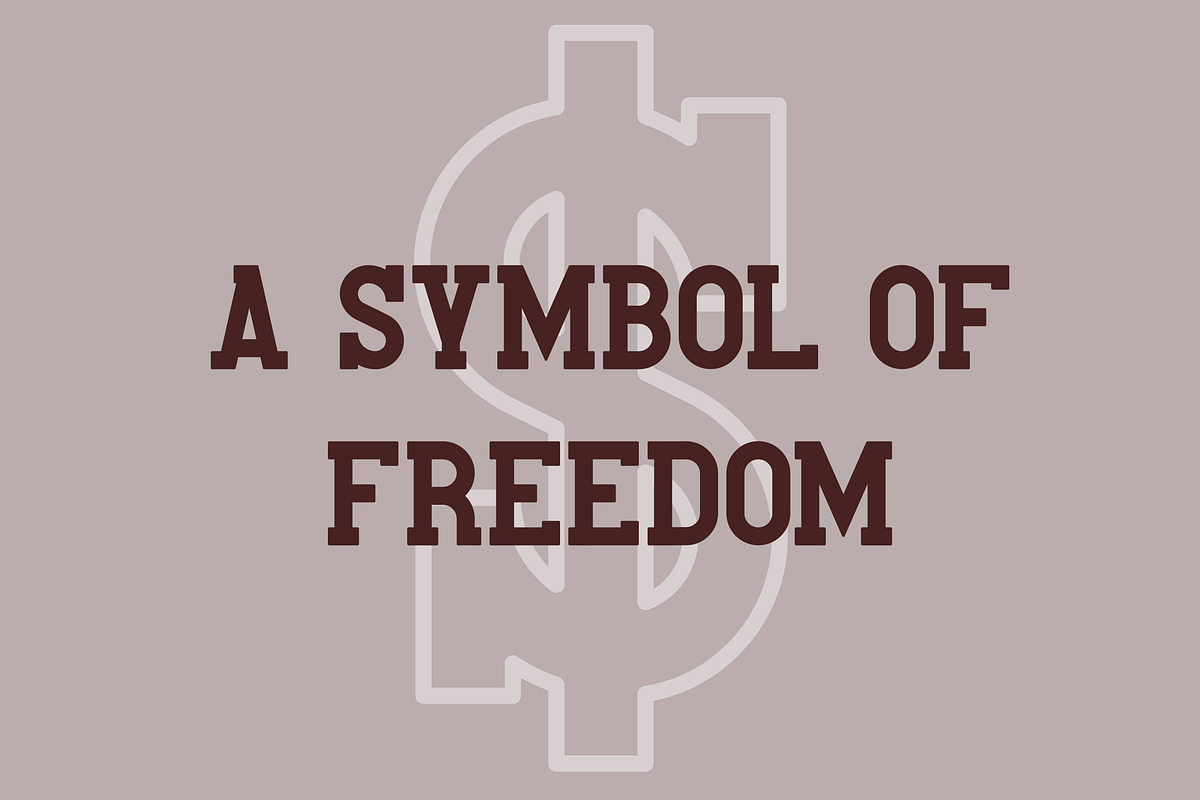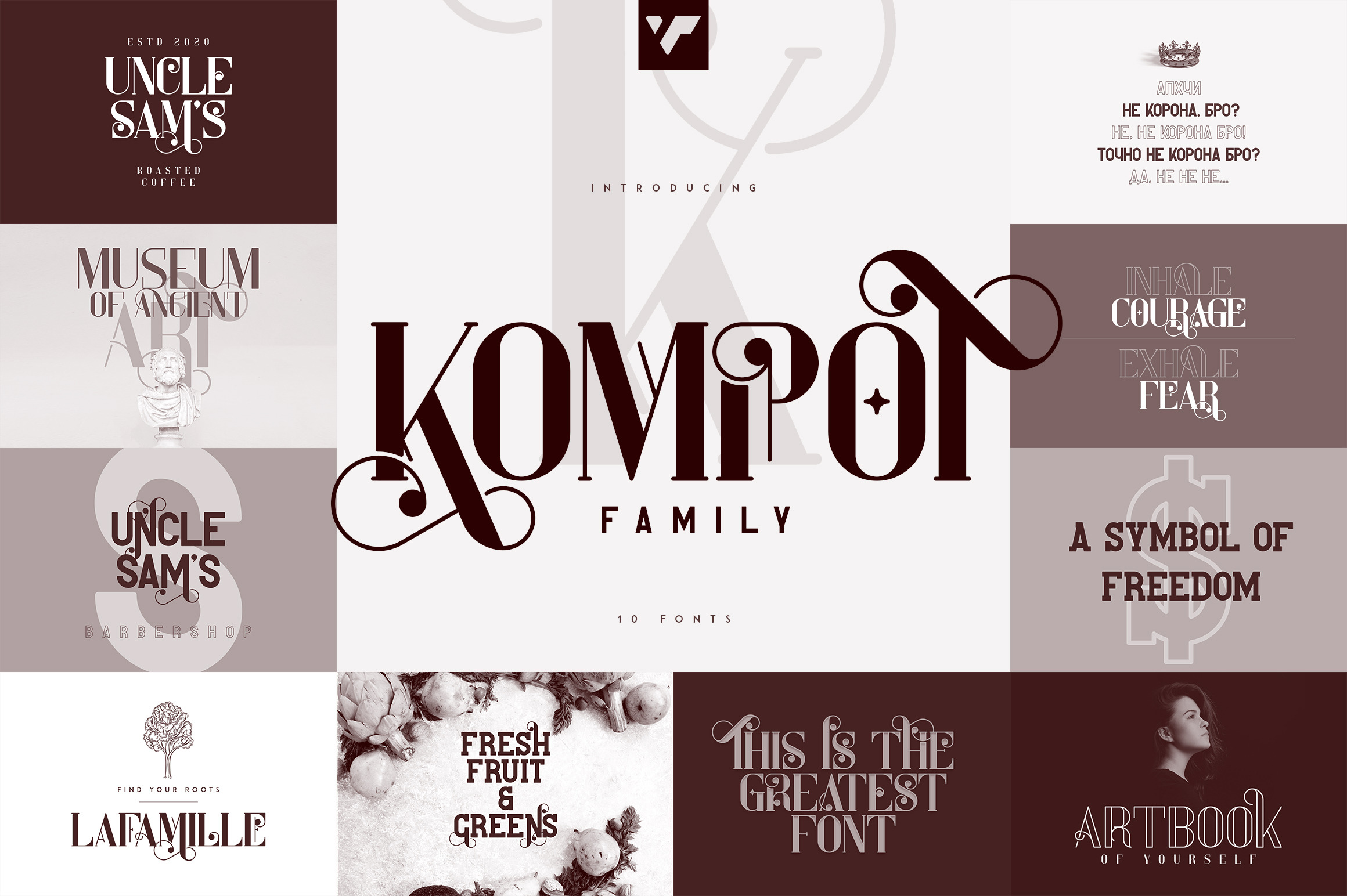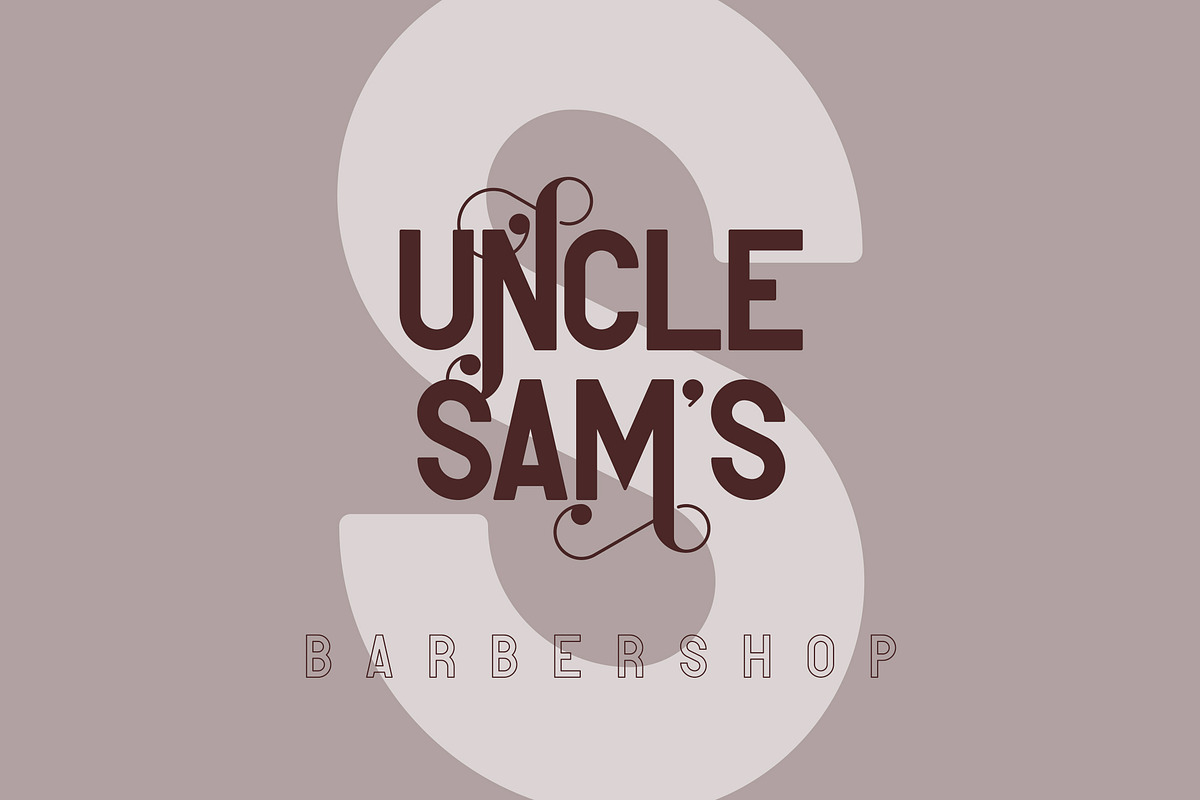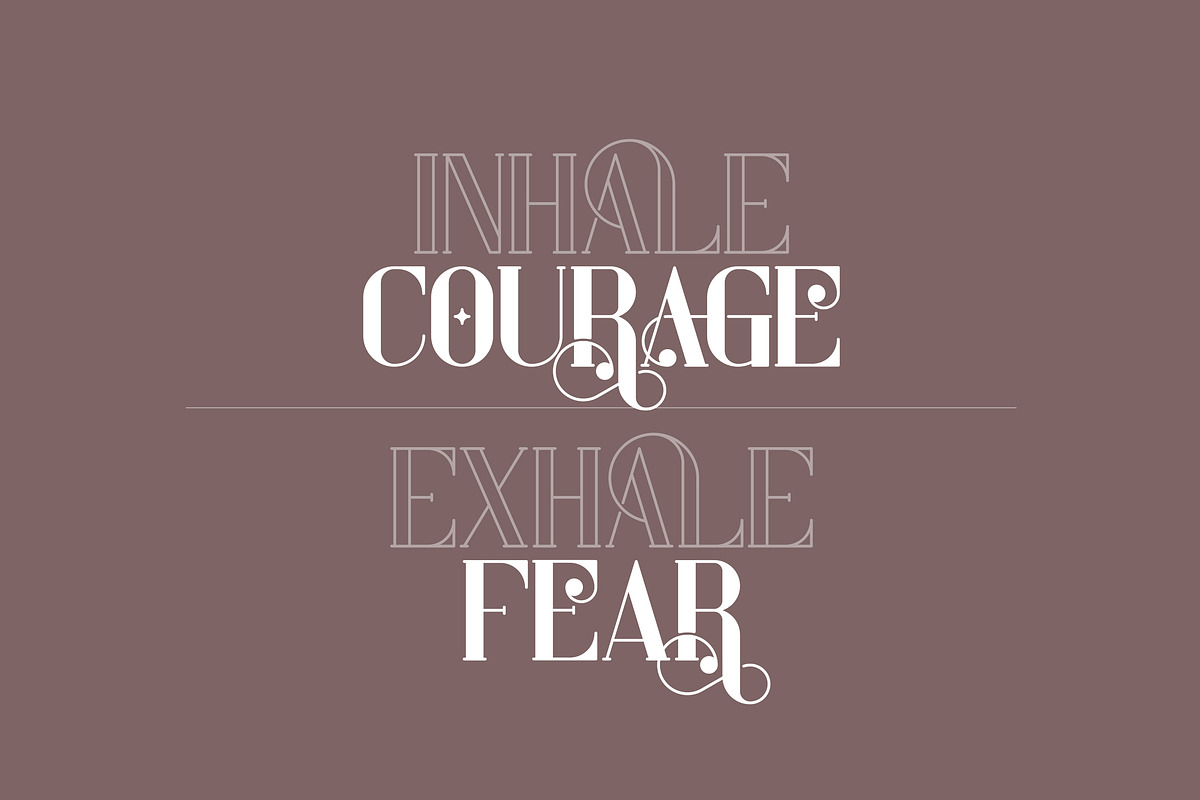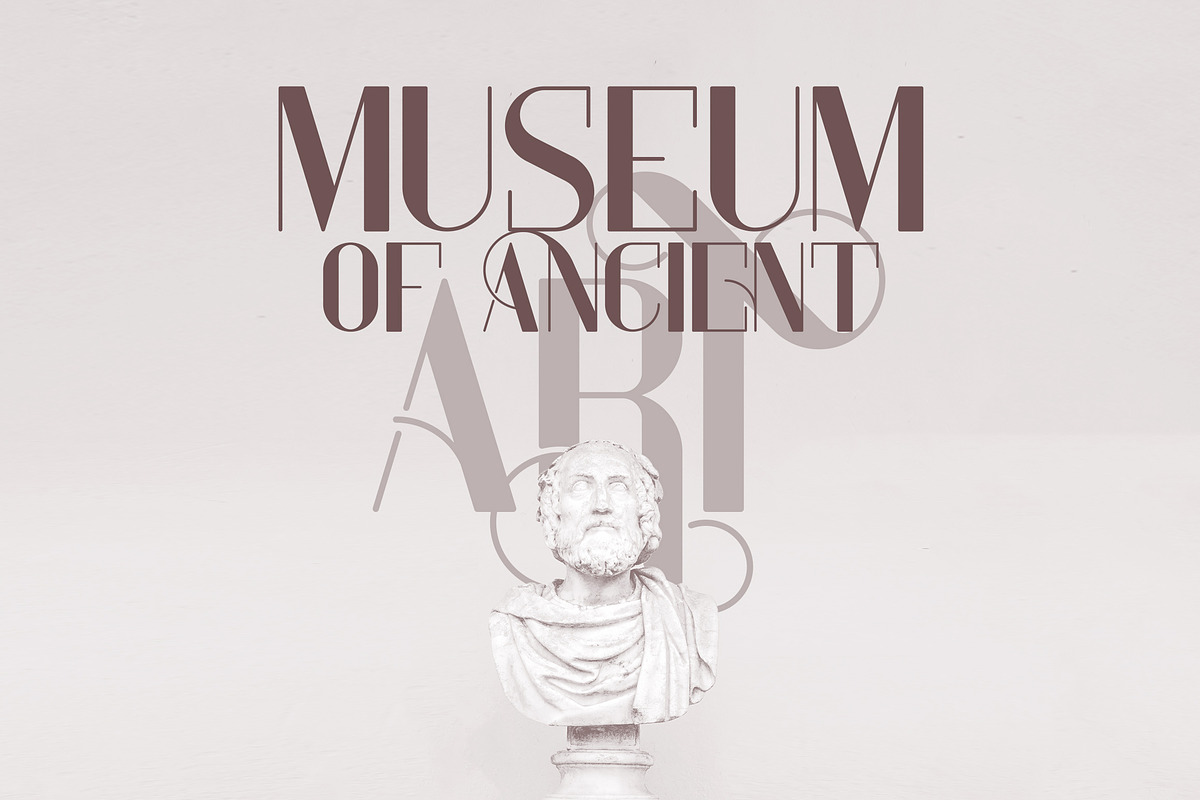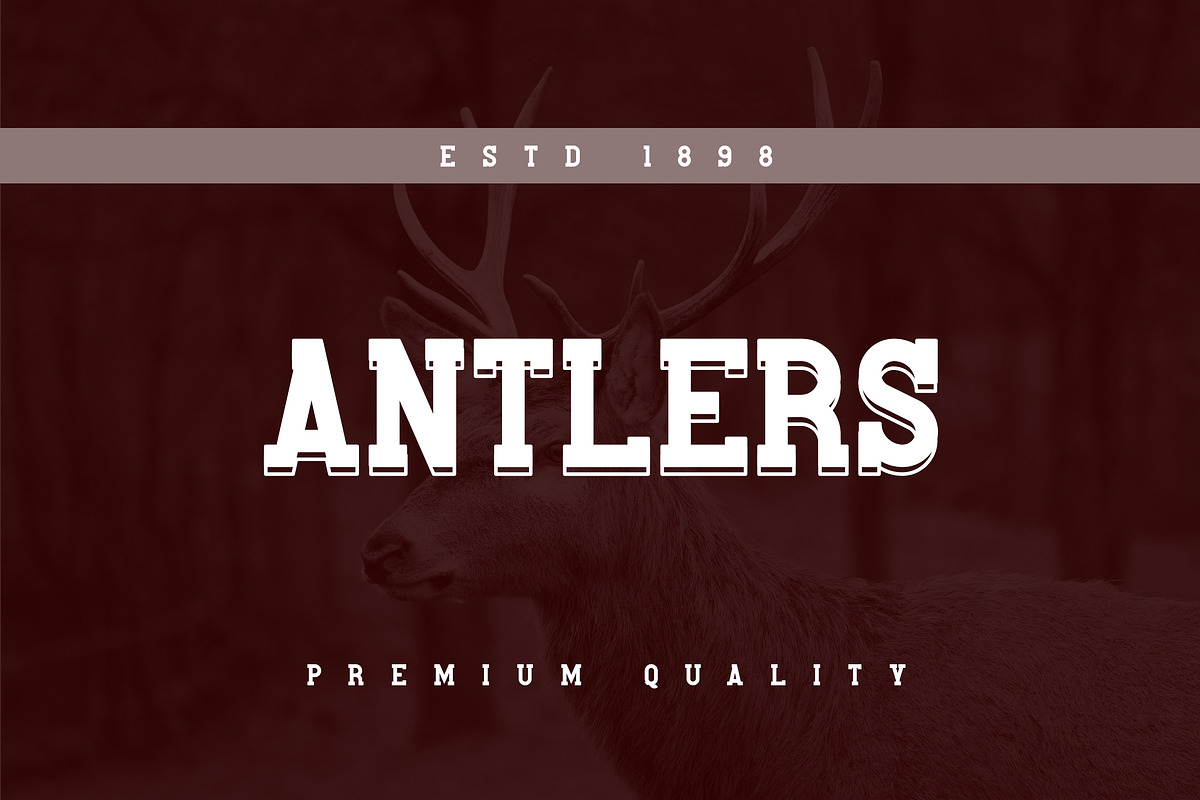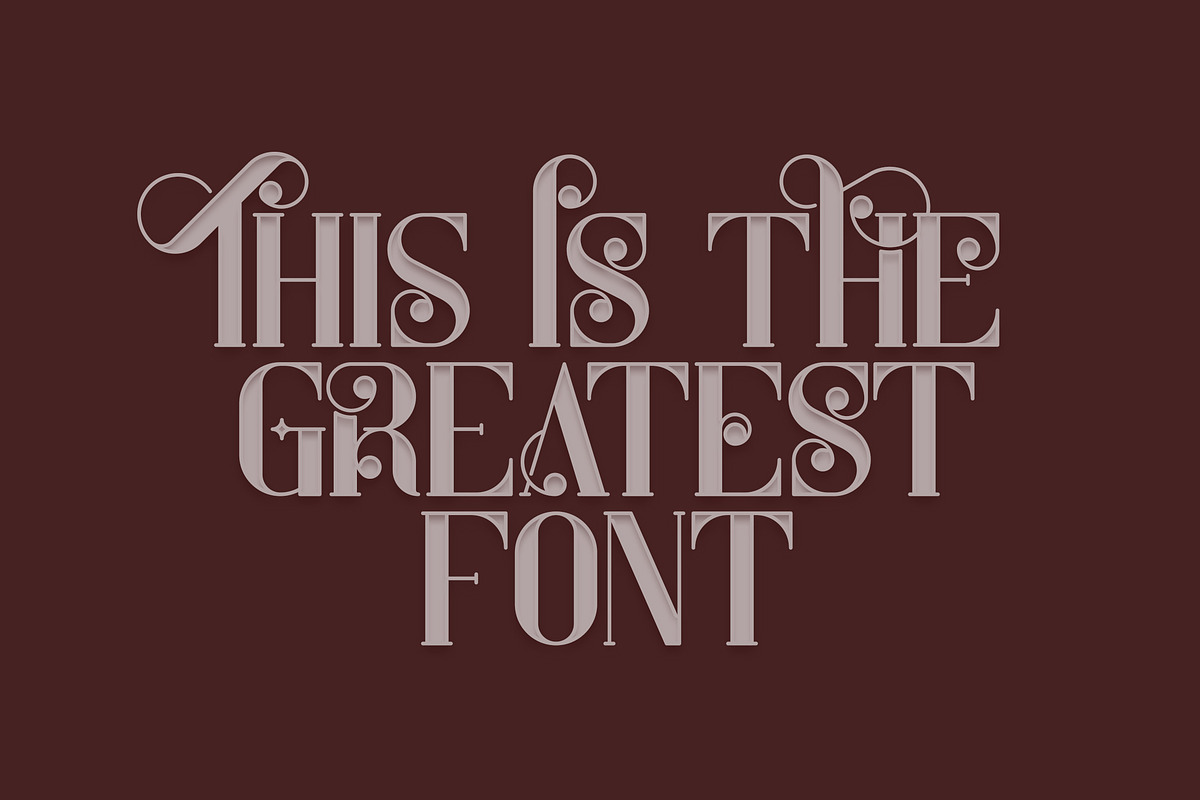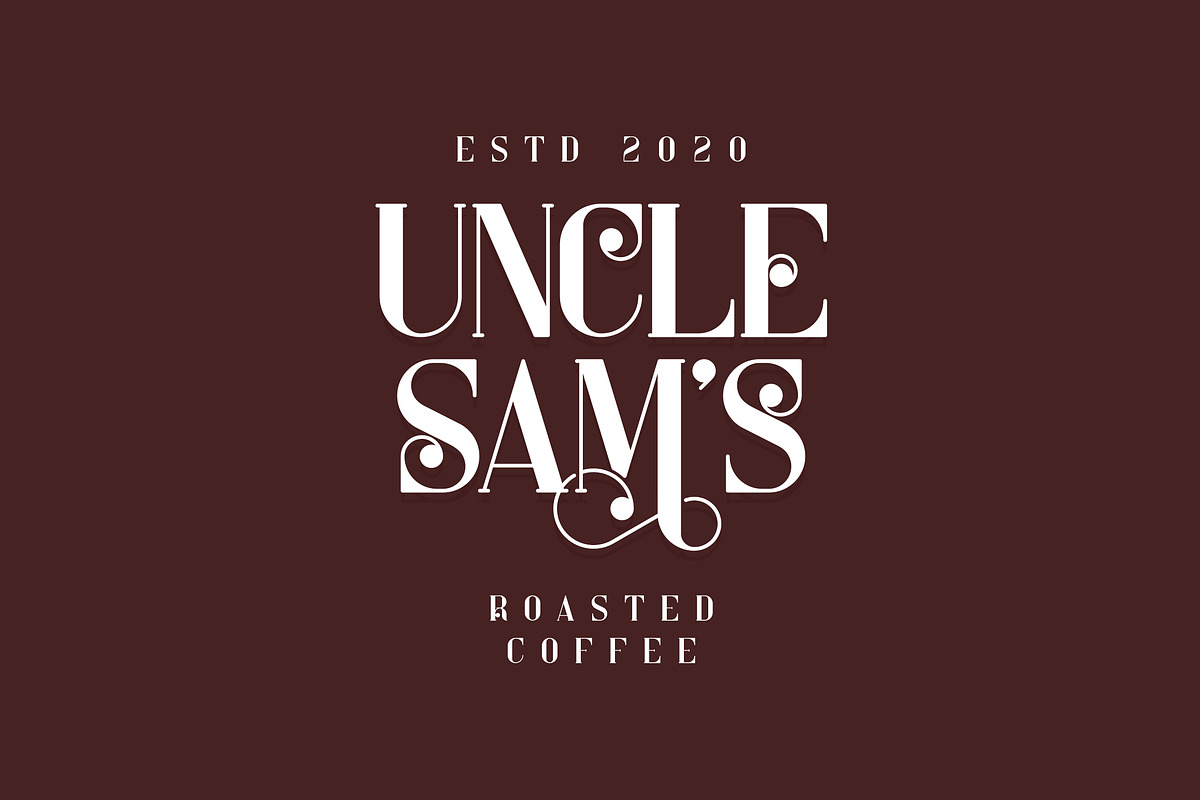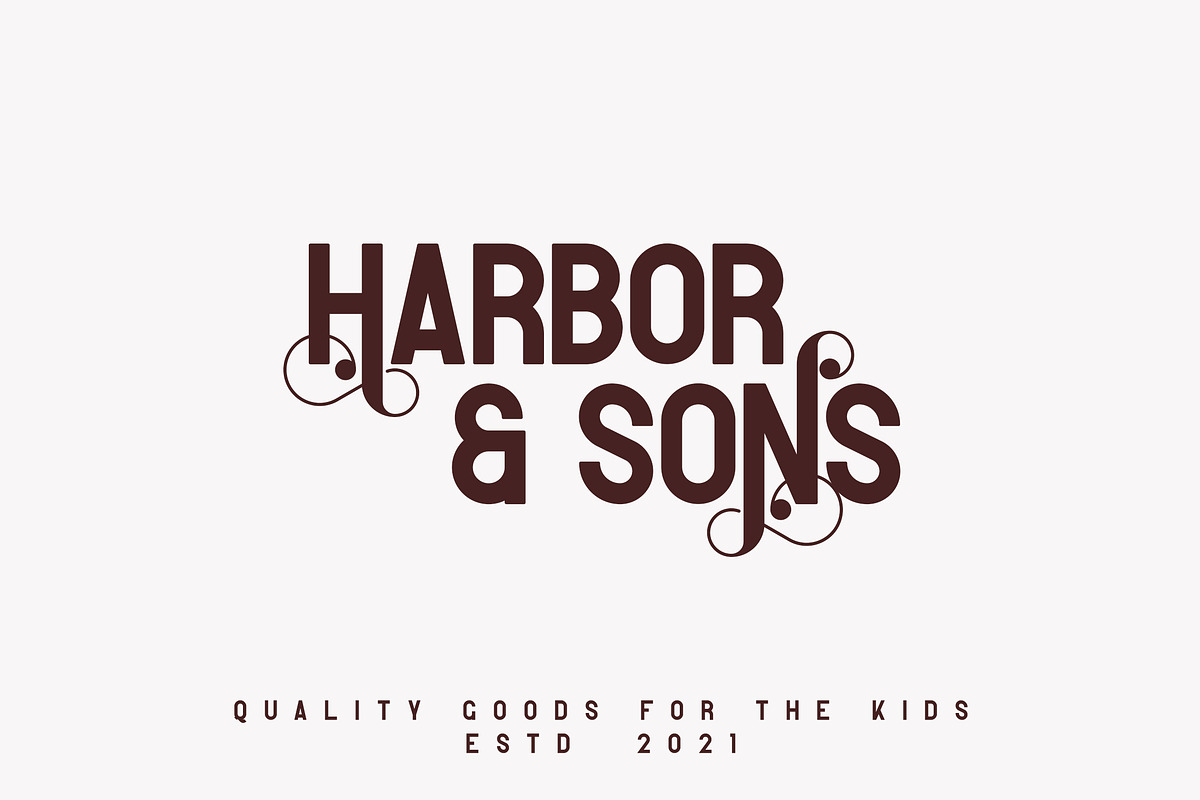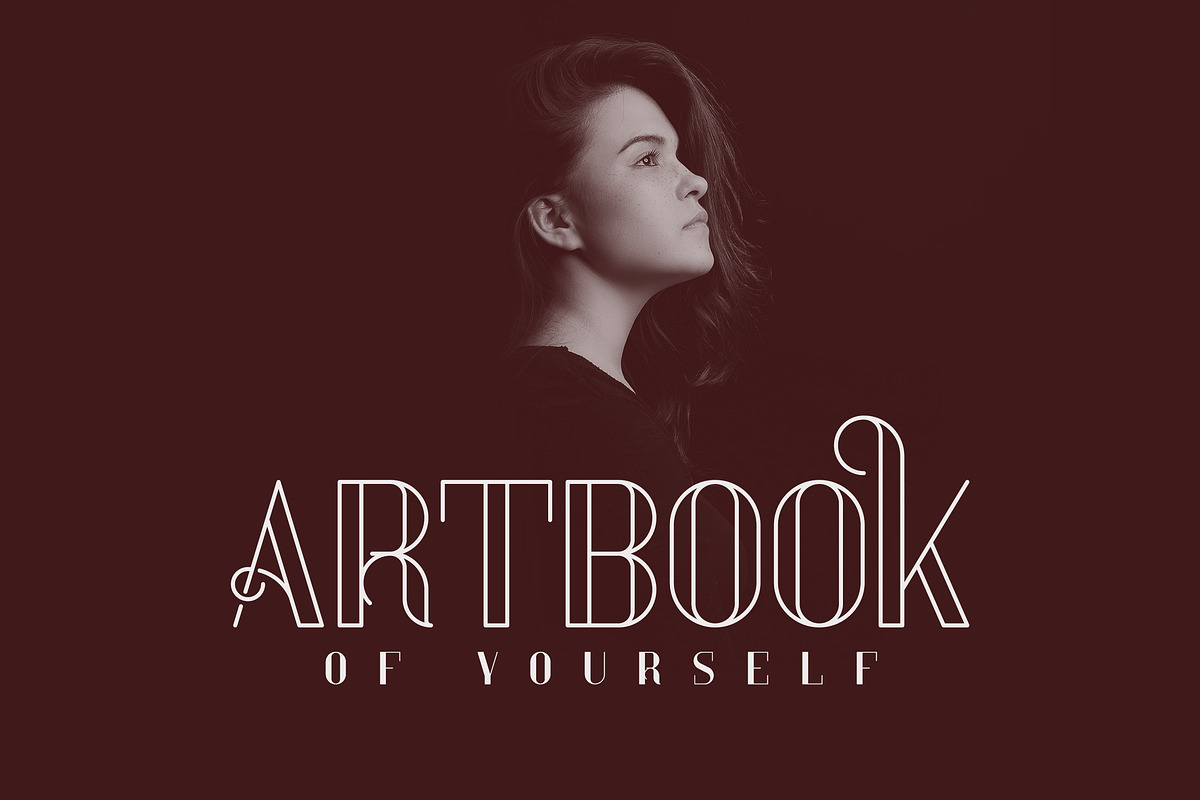
Kompot Family - 10 fonts
Introducing Kompot Display Family - 10 fonts - Latin and Cyrillic support
Kompot is elegant, vintage typeface family that contains 10 fonts to enchant your next project. They have basic latin, advanced latin, basic Cyrillic and advanced Cyrillic character sets. Very versatile fonts that works great in large and small sizes.
Kompot is perfect for branding projects, home-ware designs, product packaging, magazine headers - or simply as a stylish text overlay to any background image.
- Uppercase numeral, punctuation & Symbol
- Styled
- Outline
- Styled Outline
- Alternate glyphs
- Basic and Advanced Cyrillic support
- Uppercase numeral, punctuation & Symbol
- Outline
- Alternate glyphs
- Basic and Advanced Cyrillic support
- Uppercase numeral, punctuation & Symbol
- Outline
- Alternate glyphs
- Basic and Advanced Cyrillic support
- Uppercase numeral, punctuation & Symbol
- Outline
- Alternate glyphs
- Basic and Advanced Cyrillic support